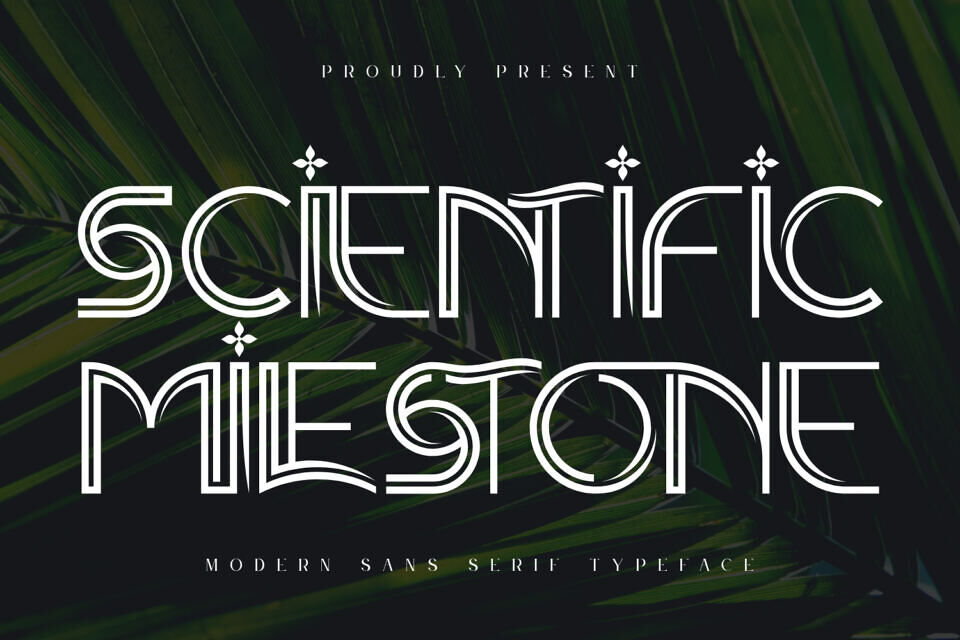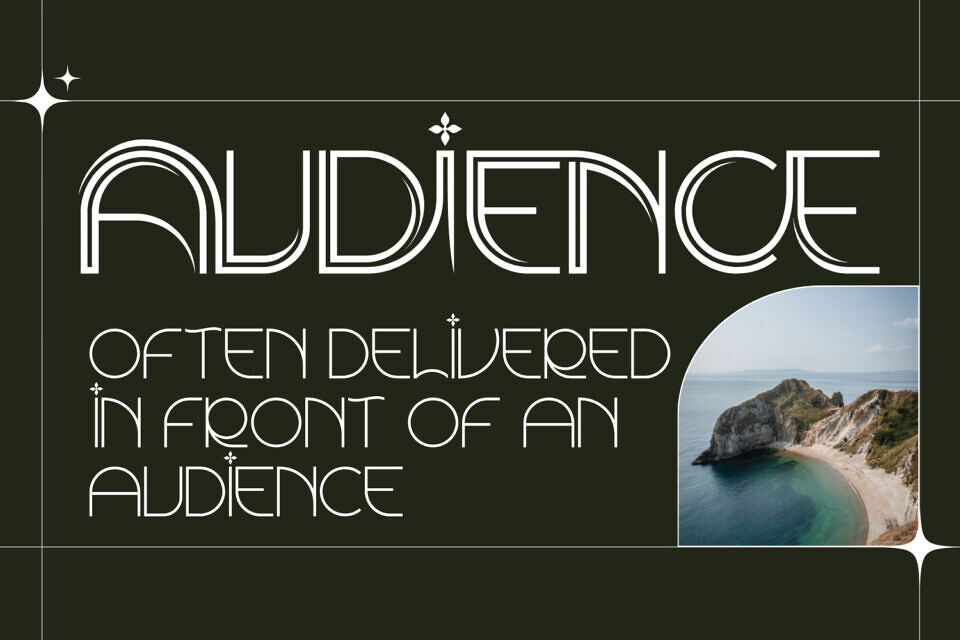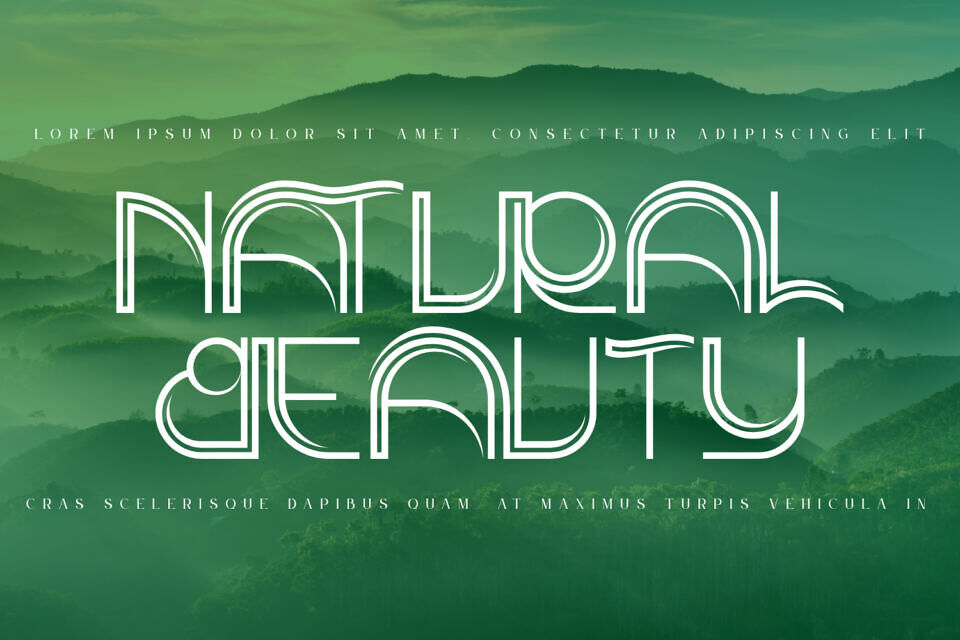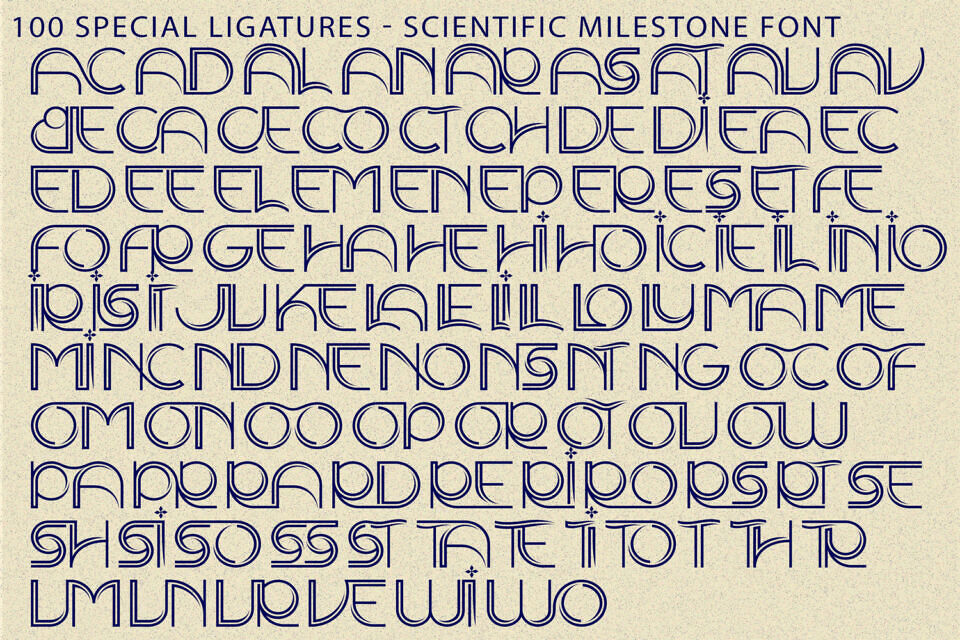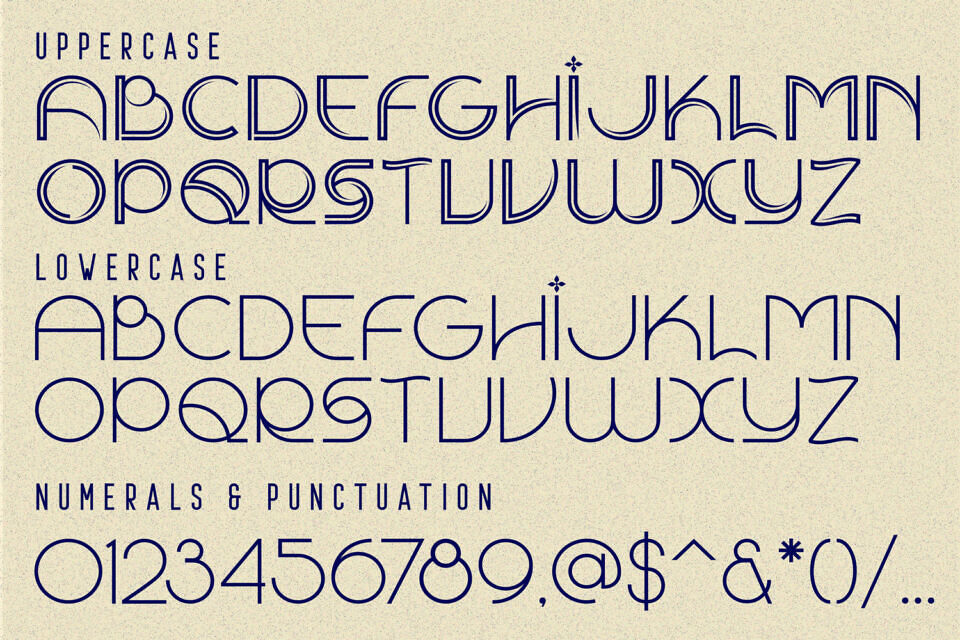
Scientific Milestone Font
Scientific Milestone is an elegant art deco-inspired line sans-serif display typeface that blends vintage sophistication with modern minimalism. Designed with delicate monoline strokes, refined curves, and subtle inline details, this typeface delivers a graceful and luxurious visual presence.
Inspired by classic editorial typography and decorative aesthetics, Scientific Milestone features unique ornamental touches and flowing letterforms that enhance its artistic character. It is perfect for fashion branding, luxury packaging, wedding invitations, editorial layouts, and boutique logo design.